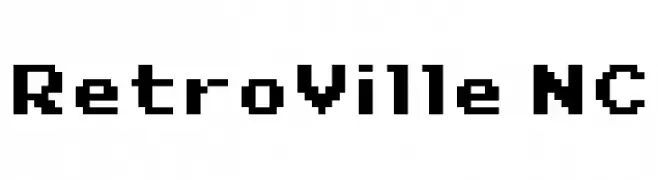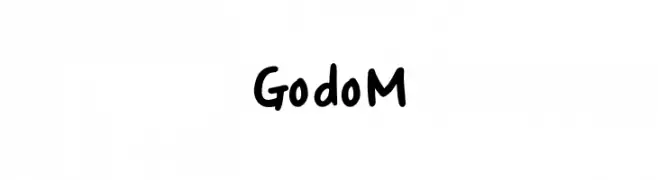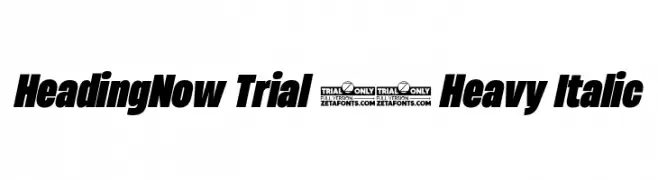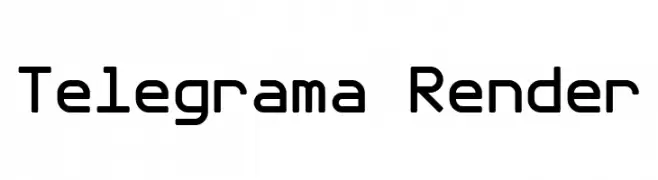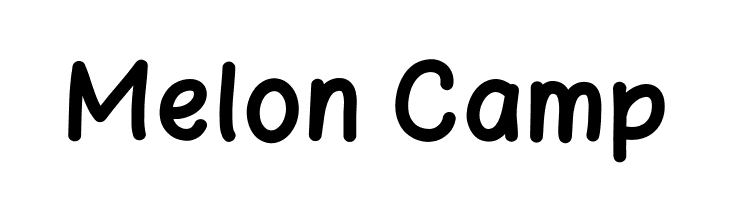
A bold, comic-inspired font with a playful, dynamic style and shadow effects.
A pixelated, retro-style font with a blocky, geometric design.
A playful and casual handwritten font with smooth, rounded letterforms.
A bold, heavy italic font with high contrast and a modern, impactful style.
A modern, geometric font with rounded edges and uniform stroke widths.
A playful, hand-drawn font with bold, rounded characters and a whimsical style.